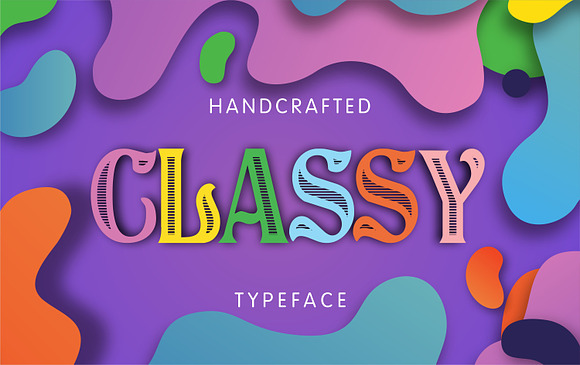
Classy - Vintage Font
Classy - Vintage Font is perfect for sophisticated whiskey branding, classic menswear labels, vintage luxury hotels, traditional gentlemen's clubs, heritage watch companies, antique furniture stores, classic automobile branding, distinguished law firms, premium tobacco products, and timeless lifestyle publications.
What makes Classy - Vintage Font so exciting is its exceptional ability to embody the refined sophistication and distinguished elegance of classic eras through letterforms that seem to carry the weight of tradition and the polish of generations of refined taste. This distinguished typeface captures the essence of timeless class and vintage sophistication with characters that radiate the confidence, authority, and cultural refinement that defined an age when craftsmanship and gentlemanly conduct were paramount values. The font's heritage design elements perfectly balance historical authenticity with contemporary luxury appeal, creating an indispensable tool that communicates established excellence, cultural sophistication, and vintage authority, making it essential for brands celebrating the enduring appeal of classical elegance and distinguished tradition.
Classy - Vintage Font comes in multiple font families including Regular, Bold, Light, Italic, Bold Italic, Distinguished, Heritage, and Aristocratic variations. Each family member maintains the core sophisticated characteristics while offering different elegance levels and stylistic approaches to suit various luxury vintage and heritage design requirements.
The vintage precision in Classy - Vintage Font makes it particularly effective for luxury heritage brands and distinguished organizations where conveying authentic vintage sophistication and established quality is crucial for connecting with clientele who appreciate genuine craftsmanship and classical refinement. Its distinguished letterforms work exceptionally well across all luxury vintage applications, from premium product packaging to distinguished club materials, maintaining consistent heritage appeal and sophisticated presentation.
Heritage luxury professionals recognize how Classy - Vintage Font transforms ordinary brand communications into powerful statements of vintage authority and established excellence. The typeface's sophisticated character set includes special heritage symbols, vintage decorative elements, and distinguished features that enhance the overall classy vintage atmosphere of any luxury heritage project.
For creative professionals serving luxury heritage brands, distinguished hospitality, and vintage lifestyle companies, Classy - Vintage Font serves as the perfect foundation for establishing memorable visual identities that capture the essential qualities of vintage sophistication, established excellence, and timeless class that define successful brands celebrating the enduring appeal of classical elegance and distinguished tradition in competitive luxury markets where heritage and refinement matter most.